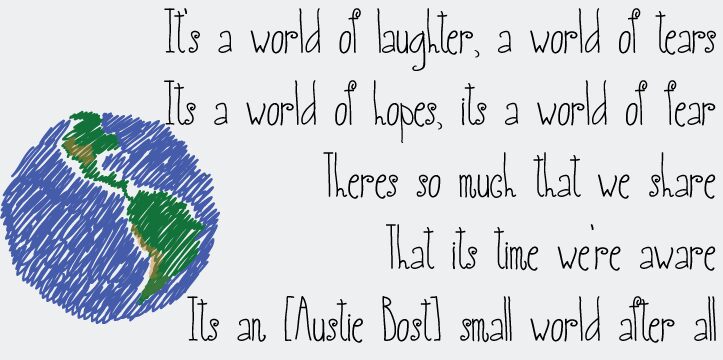
Austie Bost Small World by Austie Bost Fonts is a free handwritten font with unusually tall, narrow letters. Its thin strokes bend gently, and uneven heights keep the writing lively. Looped forms add a playful detail.
Designers working for children and families can use it for storybook covers, classroom posters, and craft packaging. The loose lettering also suits party invitations, where it can echo hand-drawn decorations and simple illustrations. Its lanky, curious shapes are especially at home in gentle, offbeat children's stories.